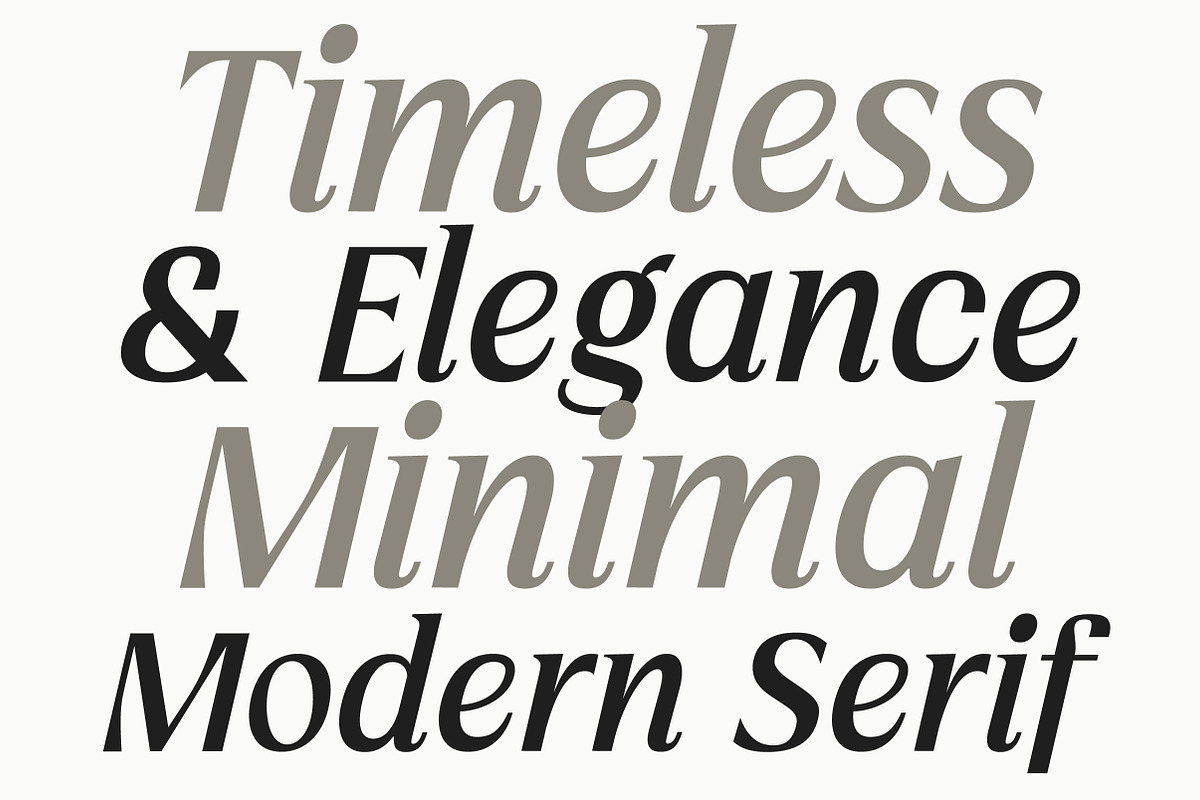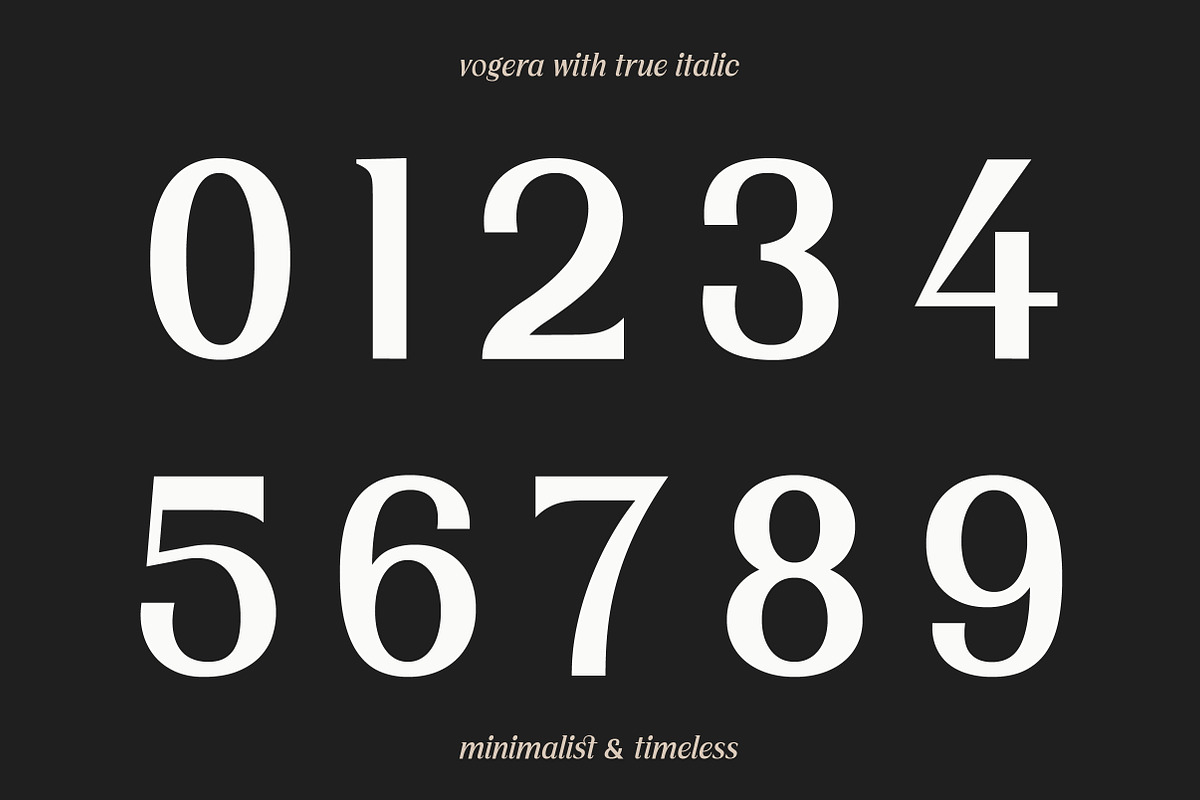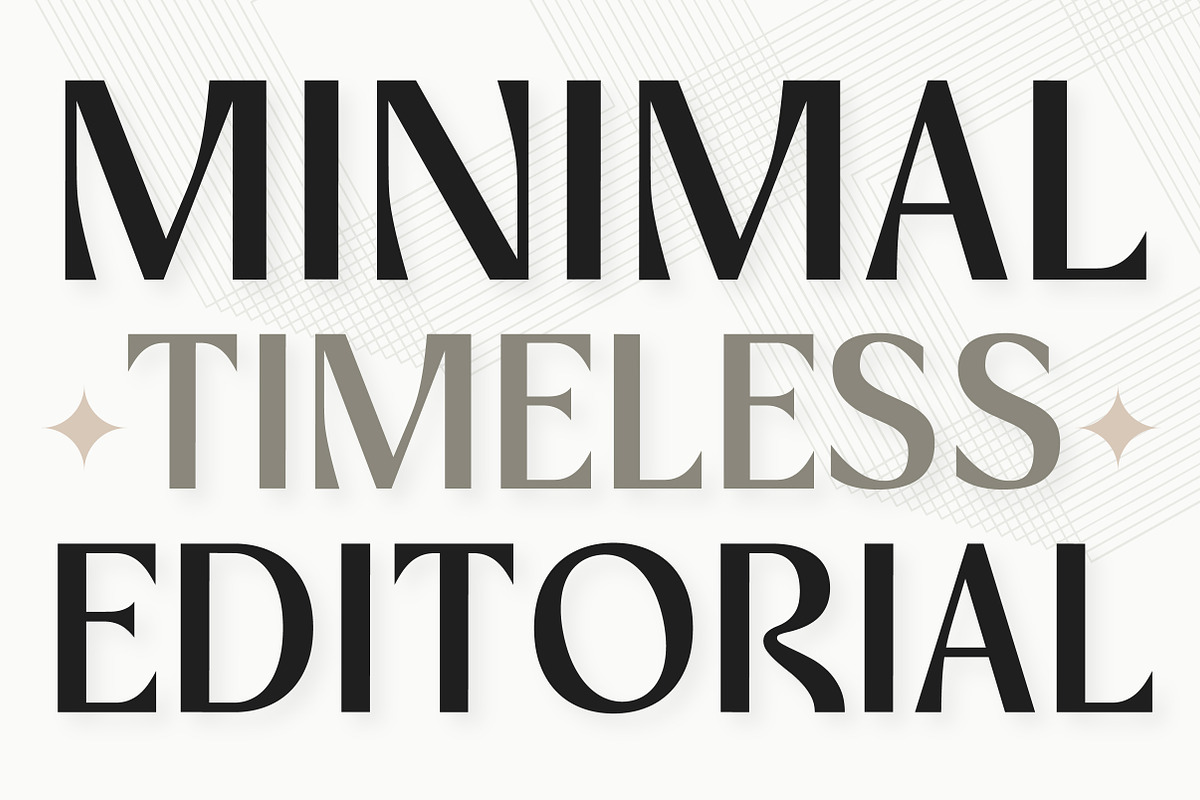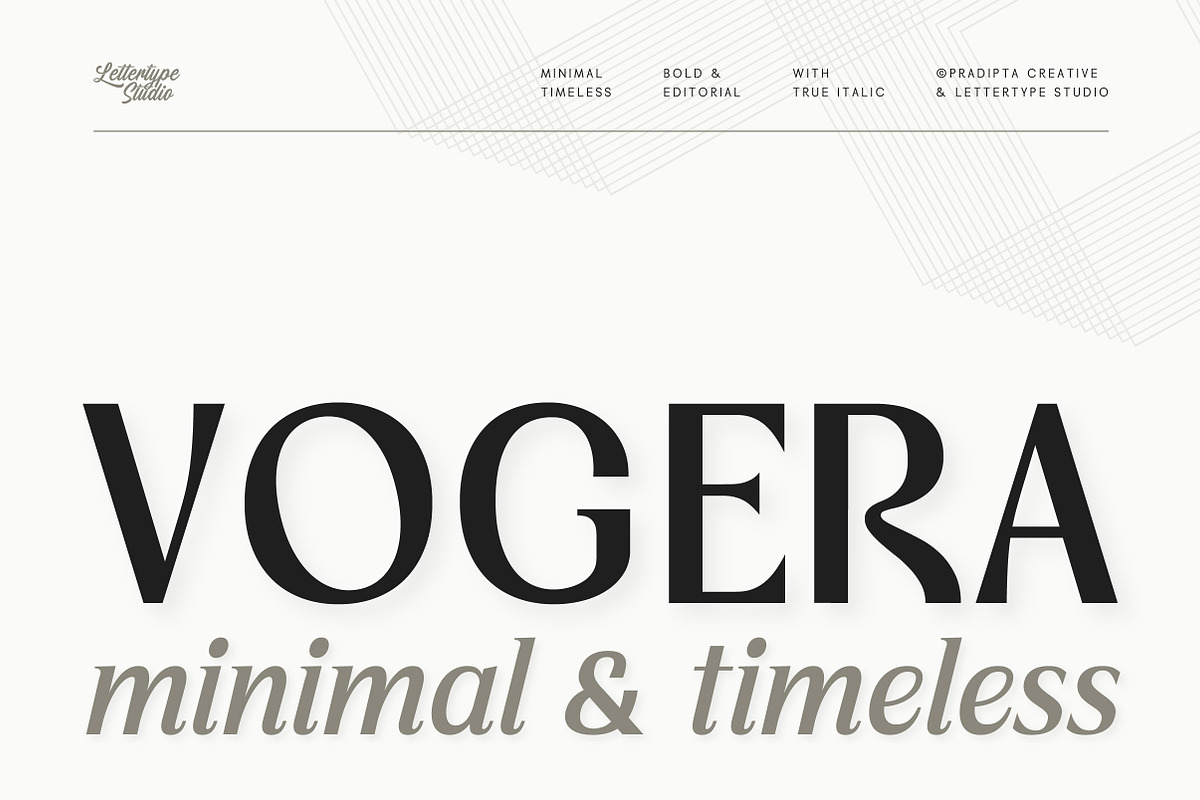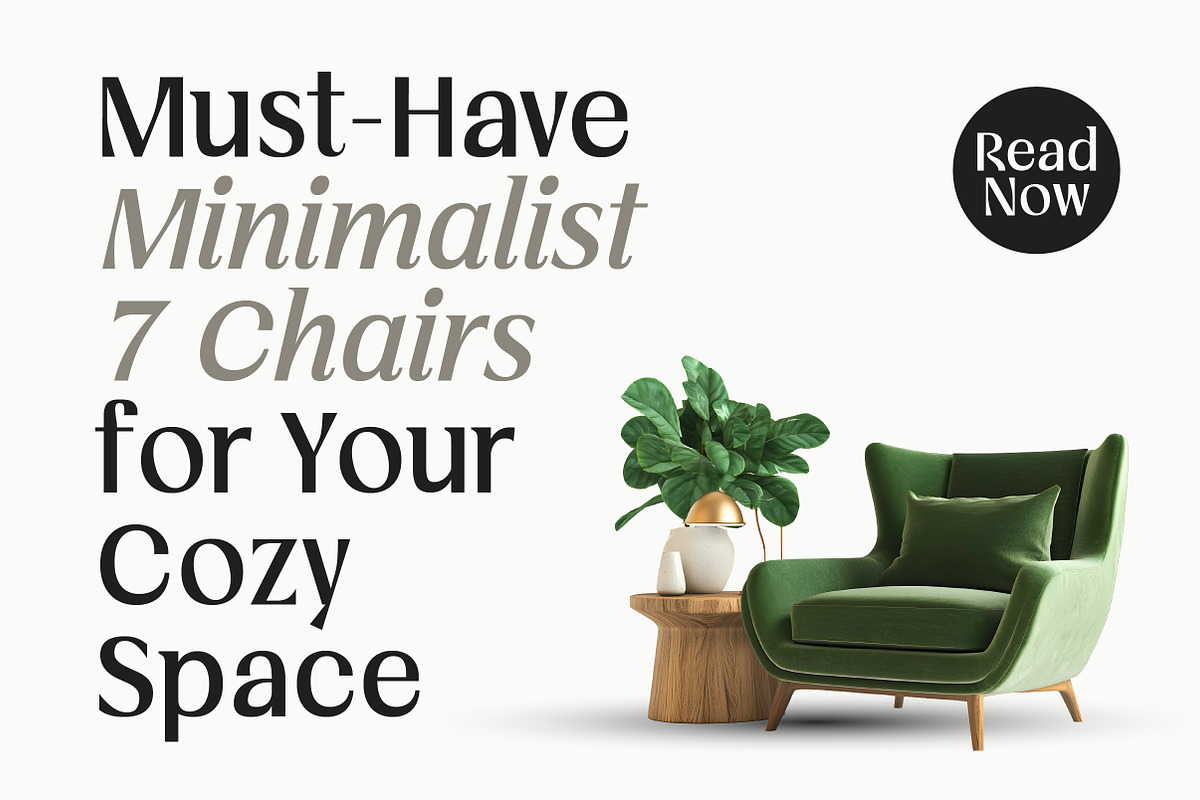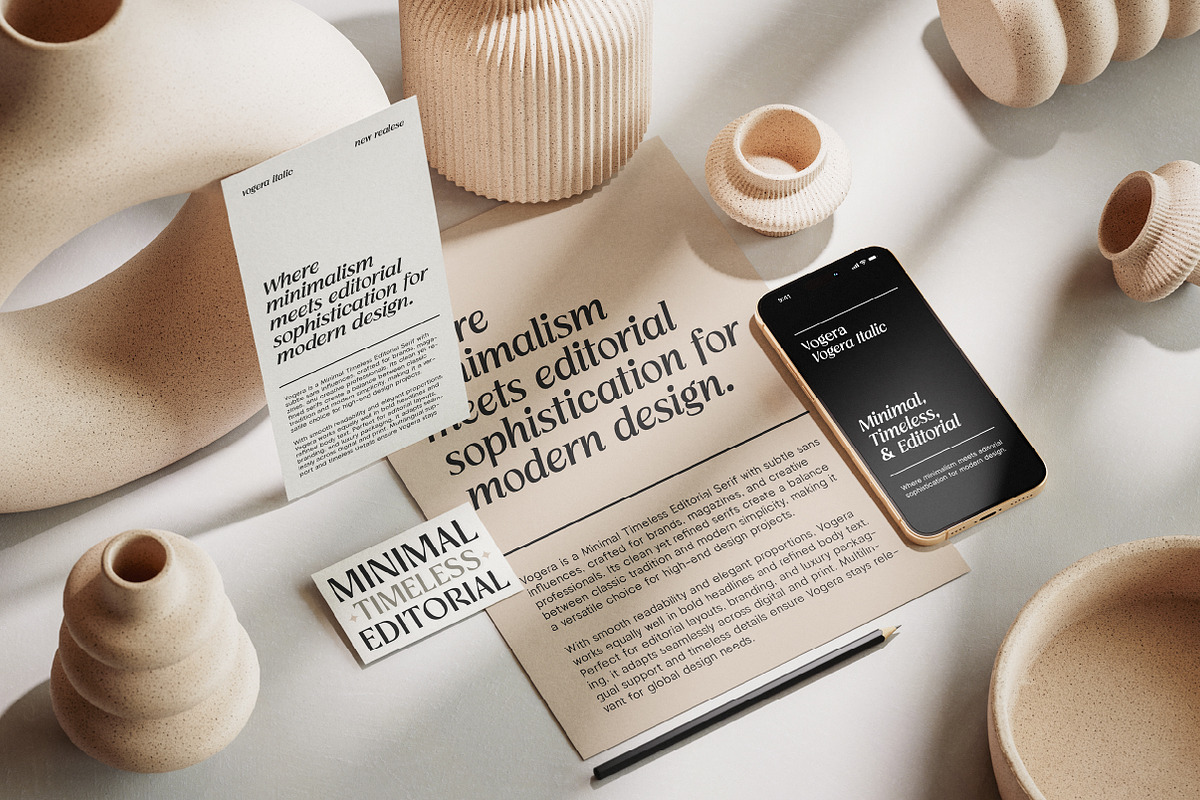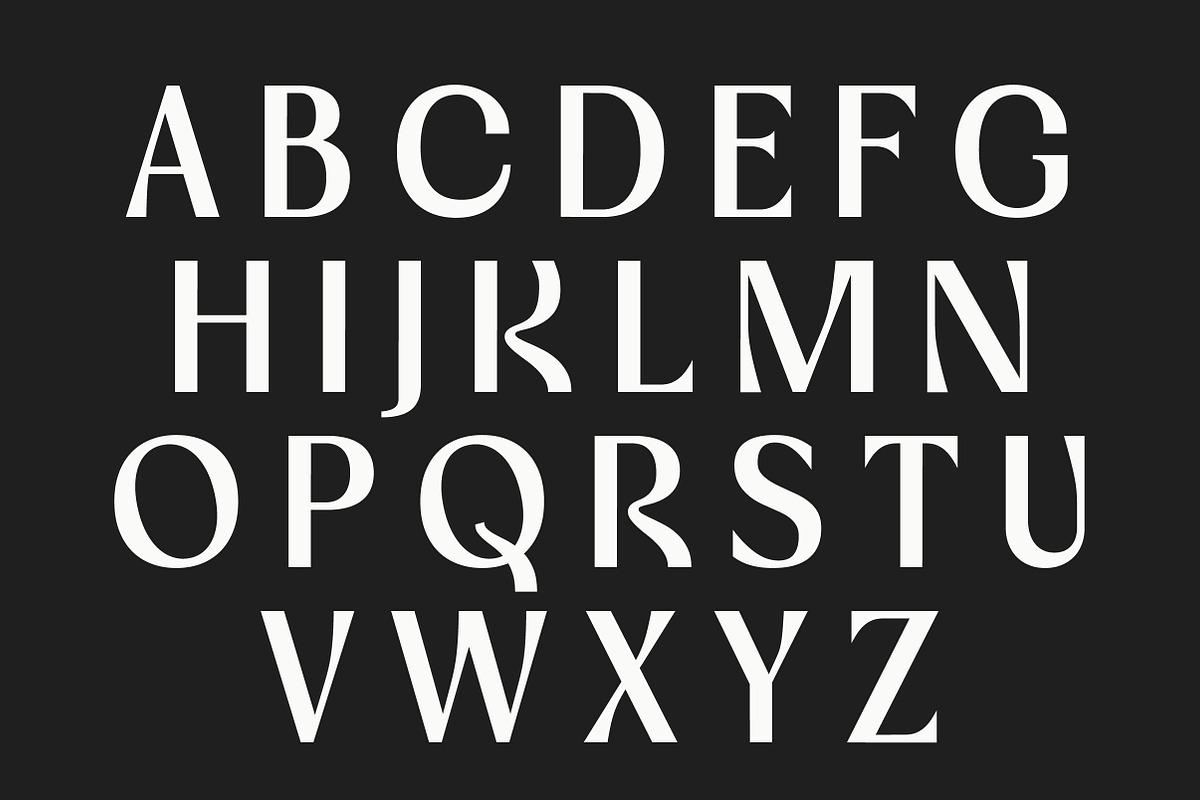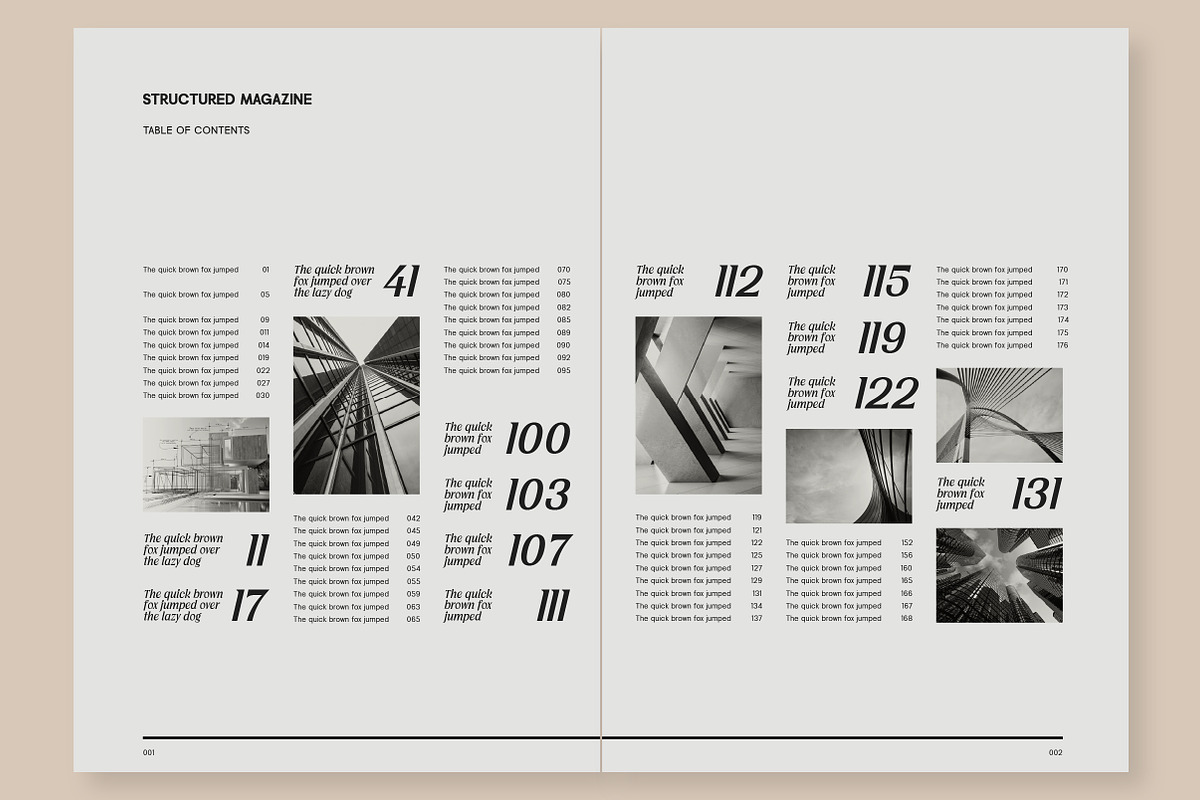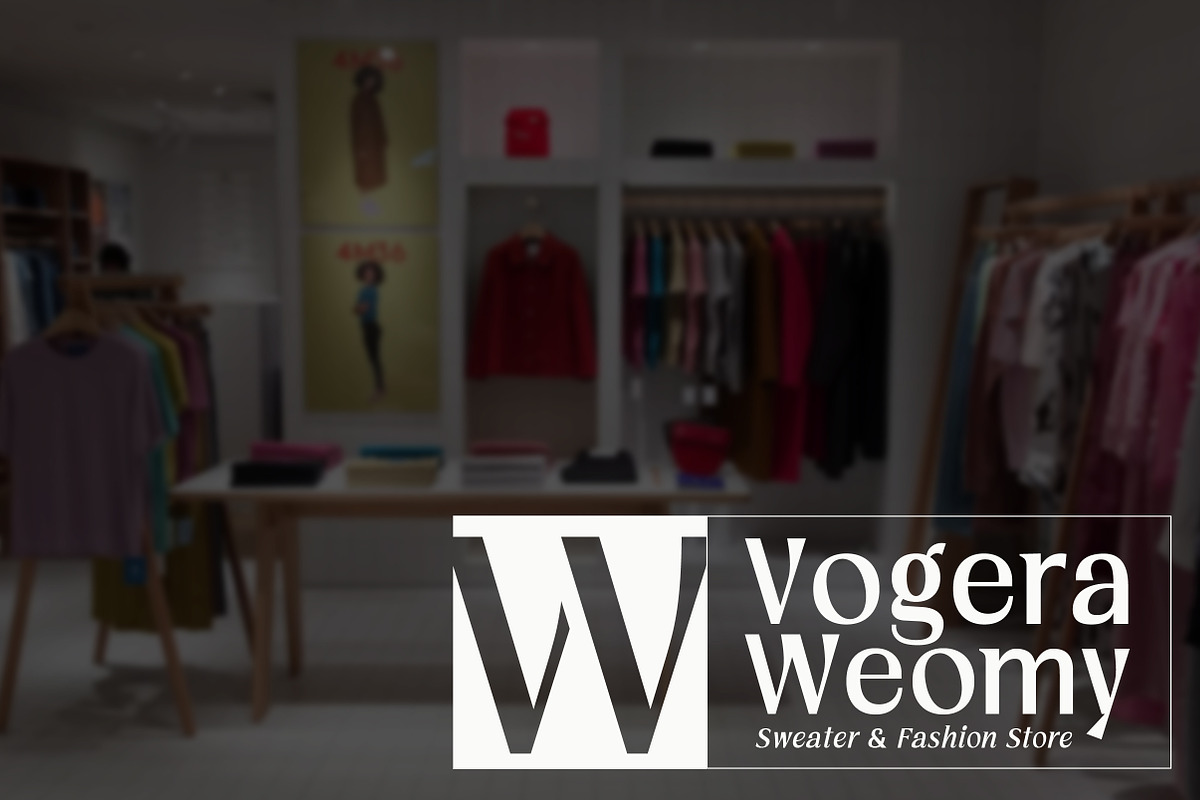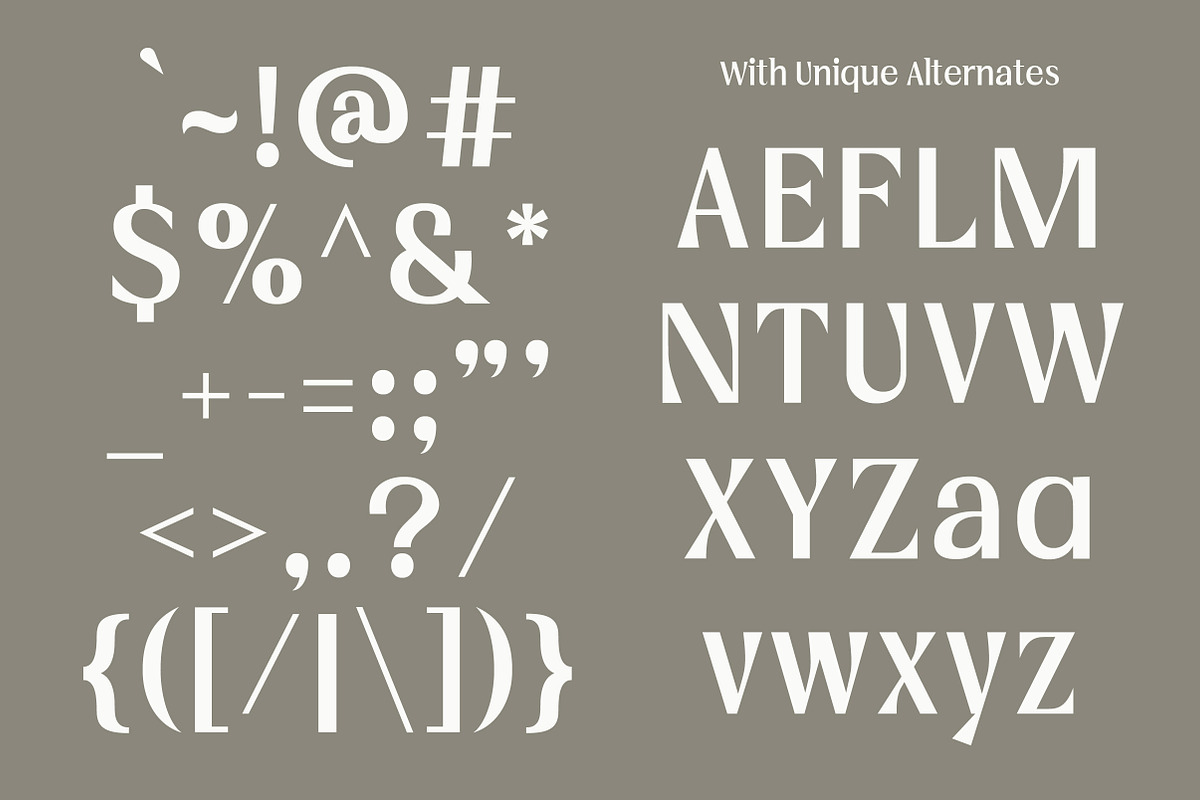
Vogera Minimal Editorial Serif
Vogera is a minimalist, timeless editorial serif with subtle sans serif influences, crafted for modern branding, magazines, and creative projects. Its refined letterforms combine understated serifs with clean proportions, striking the perfect balance between tradition and modernity. This makes Vogera a versatile choice for designers seeking sophistication without excess, perfect for high-end identities, fashion campaigns, and editorial layouts.
Beyond its core design, Vogera also includes 20 creative alternates for selected characters (A, E, F, L, M, N, T, U, V, W, X, Y, Z, a, v, w, x, y, z) and 14 unique ligatures, giving designers endless flexibility for distinctive logotypes and expressive editorial headlines. Combined with smooth readability, multilingual support, and carefully crafted details, Vogera adapts seamlessly across digital and print, elevating your work with elegance, clarity, and timeless style.
Vogera Features:
- 2 Styles
- Regular & True Italic
- 20 Alternates & 14 Unique Ligatures
- 469 Glyphs Total
- 260+ Languages Support
- Editorial, fashion, and lifestyle magazine layouts
- Luxury branding, logo, and visual identity design
- Book covers, headlines, and typographic posters
- Creative campaigns and minimalist web design
- Packaging, invitations, and print materials with refined style